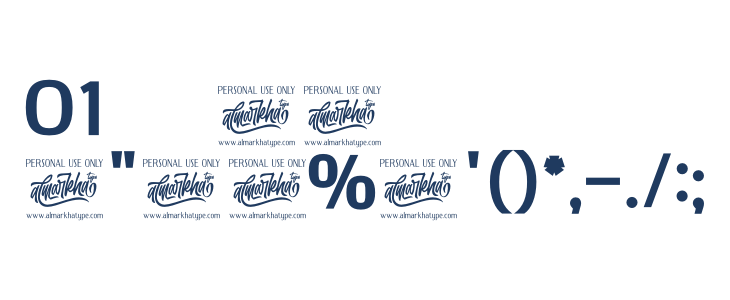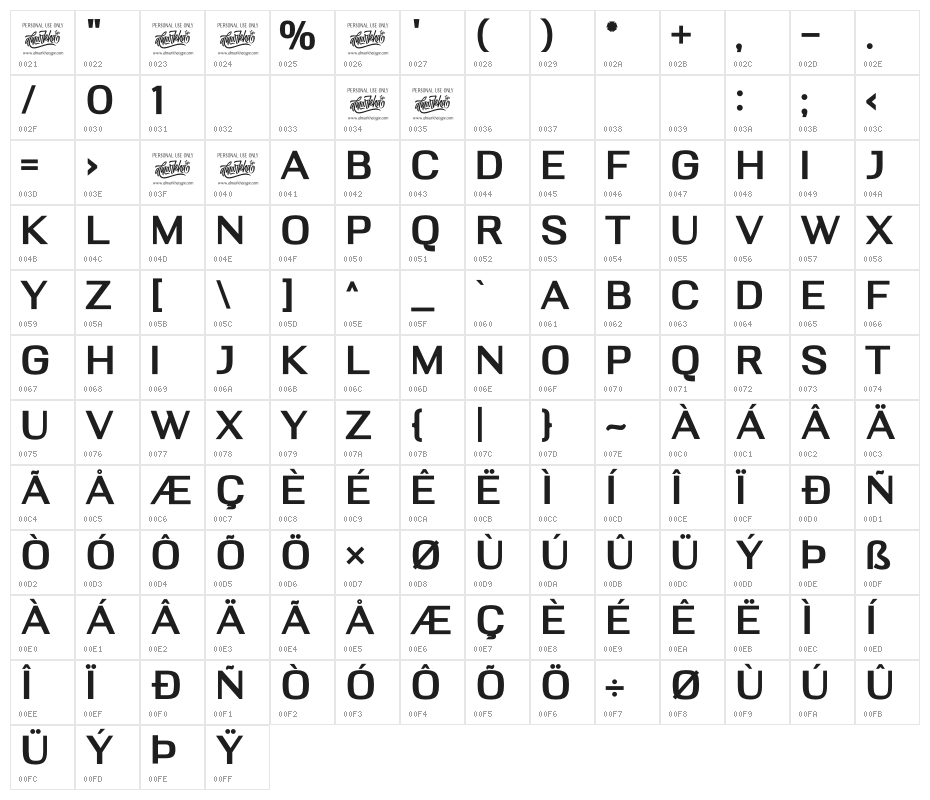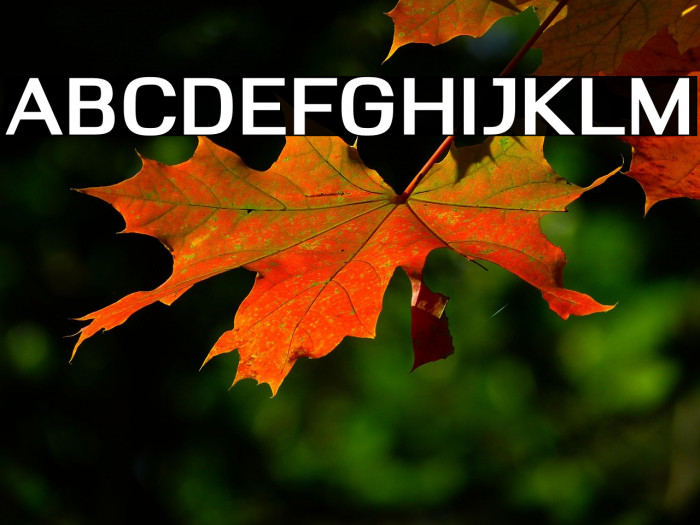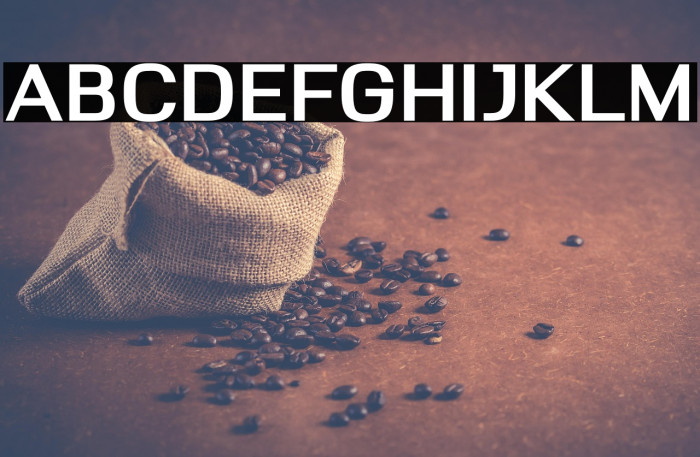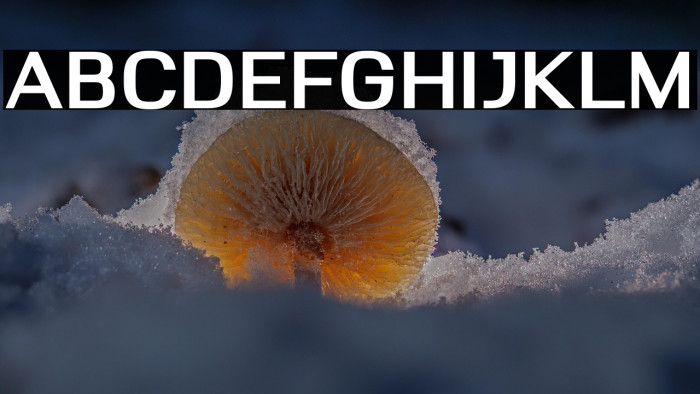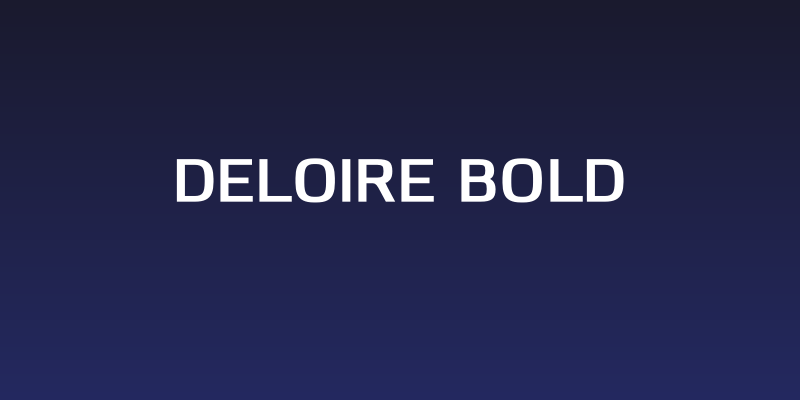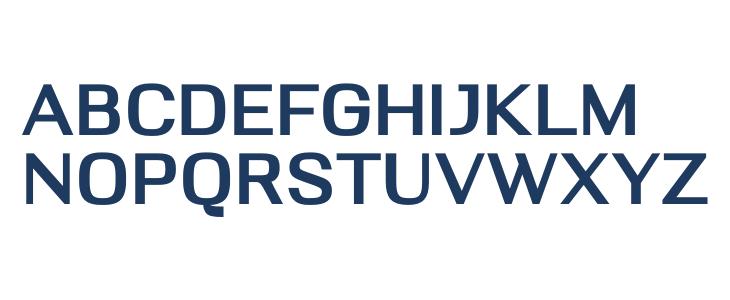
Deloire Bold Font
Deloire Bold Description
This font features a bold and modern sans-serif style with clean lines and a strong presence. The uppercase letters are uniform in height, providing a sense of stability and balance. The characters are slightly condensed, giving a compact appearance without sacrificing readability. The numerals are consistent with the letterforms, maintaining the bold and structured aesthetic. Special characters are included, matching the overall style and ensuring versatility in various design contexts.